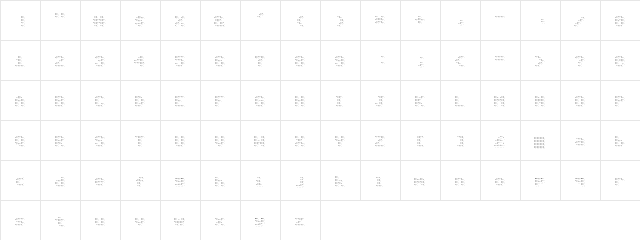
00ne Neuropearl (for TomoAlien) Regular
| Designer | neurone error |
Design Context for 00ne Neuropearl (for TomoAlien) Typeface
00ne Neuropearl (for TomoAlien) offers clean, dependable letterforms without strong stylistic allegiance, making it a practical choice for designers who need flexibility.
Pro Tip: Pair 00ne Neuropearl (for TomoAlien) with a font of contrasting weight or personality to build a more expressive typographic hierarchy.